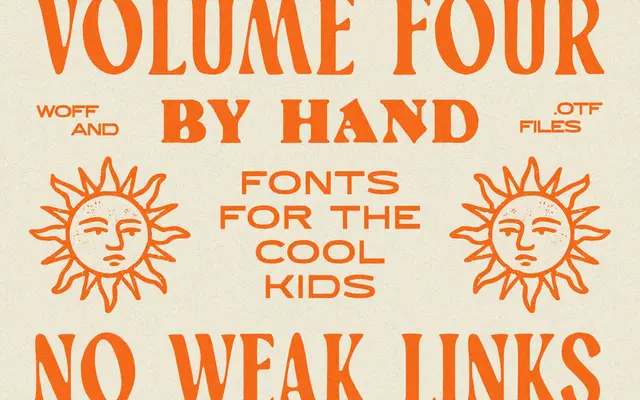
Type Volume Four
A collection of twelve hand-drawn display typefaces with a mid-century character, ranging from retro to modern in feel.
Twelve individually named hand-lettered faces sold as a single bundle, each with its own personality but united by a hand-drawn warmth and mid-century sensibility. Some lean toward vintage Americana or diner signage; others sit closer to contemporary casual lettering. The bundle is aimed at branding, packaging and web use, covered under a single flat-fee commercial licence with no seat or traffic restrictions.
A bundle of twelve hand-drawn display typefaces with mid-century character, spanning retro and modern directions. The hand-lettered, illustrative nature places them firmly in the display/script-adjacent category.